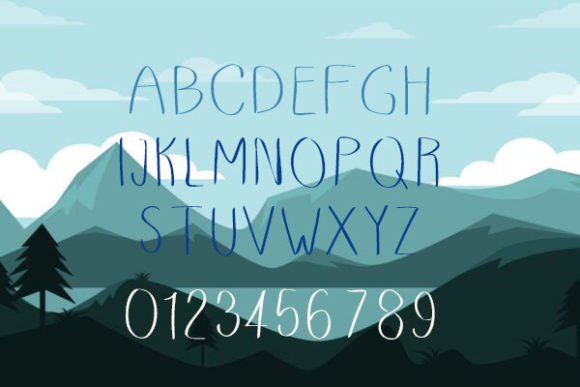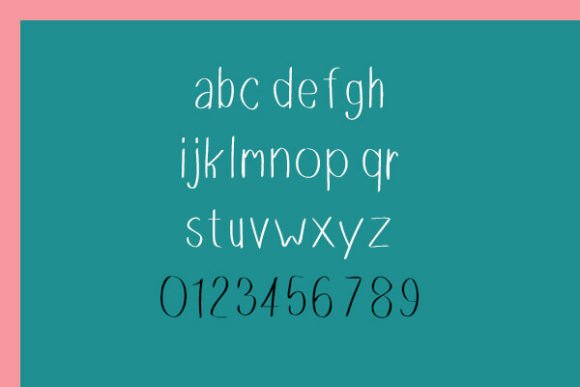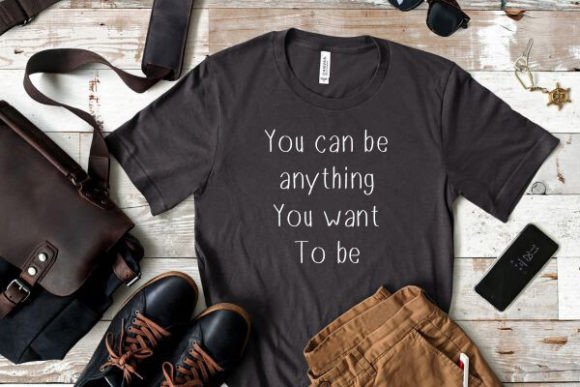
Introduction to Like Font Font
Fonts play a crucial role in design, and the Like Font font is a typeface that brings both character and versatility to any project. Whether you’re working on a branding project, a website, or a print design, the Like Font font offers a unique style that can elevate your work.
Like Font , script & handwritten Font, that can be used for all chalkboard quotes or teaching material.
Key Features of Like Font Font
Why Choose Like Font Font?
The Like Font font is more than just a typeface – it’s a design tool that helps you communicate your message with style and clarity. Its unique character set and versatile design make it suitable for a wide range of applications, from elegant invitations to bold headlines.
With its carefully crafted letterforms and balanced proportions, the Like Font font ensures readability and visual appeal across all mediums.
What makes Like Font font special?
The Like Font font stands out with its unique design, exceptional readability, and versatility across various design applications.